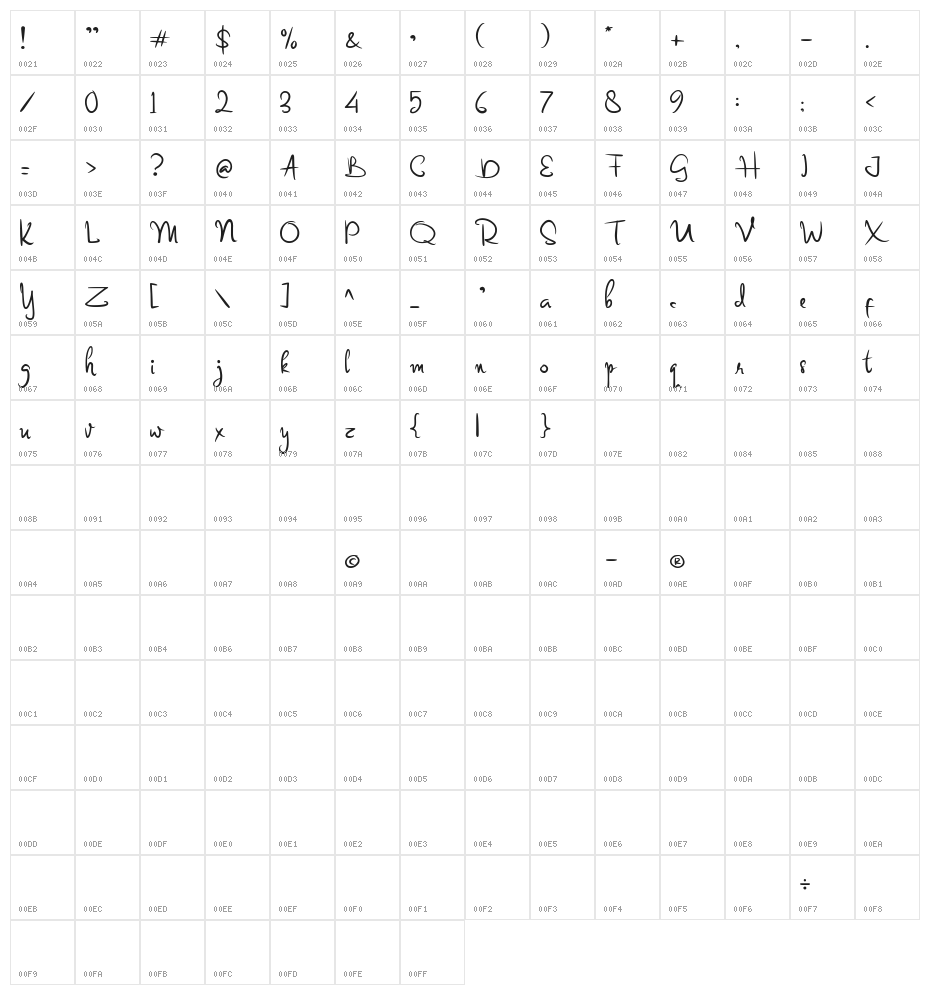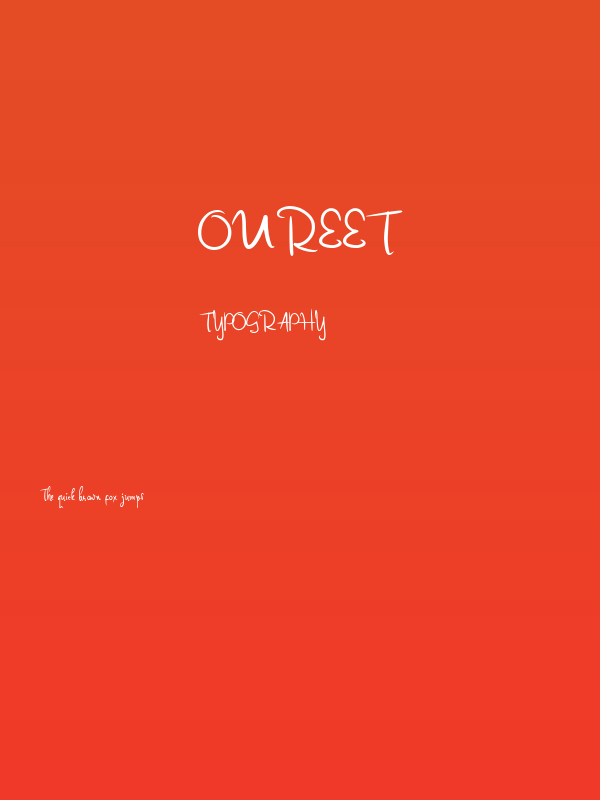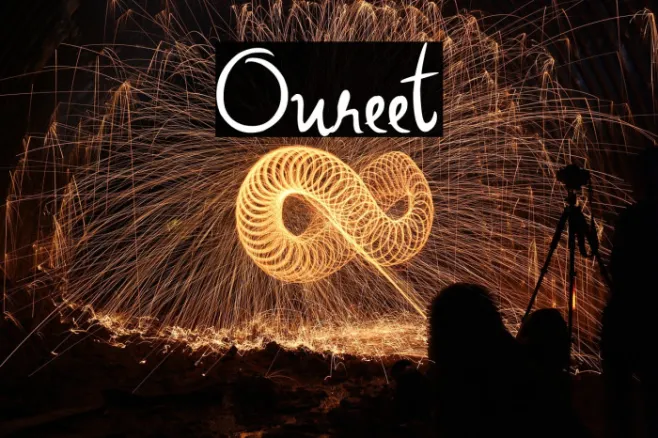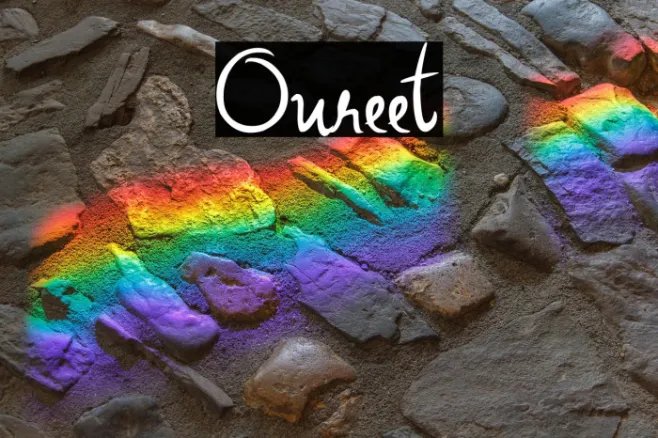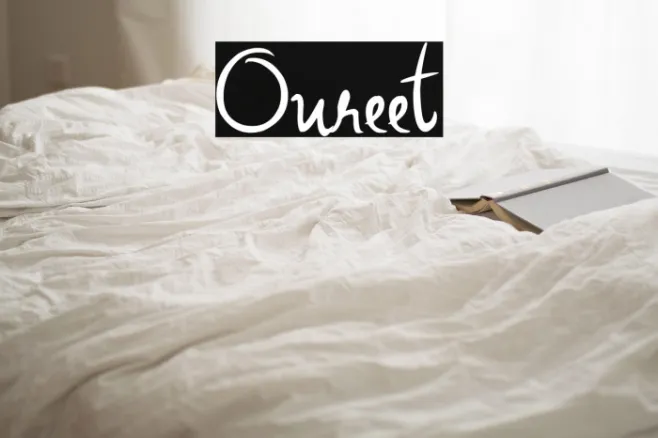
Oureet Font
Oureet Description
This font features a playful and artistic script style, characterized by its fluid and dynamic strokes. The uppercase letters exhibit a whimsical flair with varying stroke widths, while the lowercase letters maintain a consistent, flowing appearance. The numerals are bold and slightly exaggerated, adding to the font's expressive nature. Special characters are creatively integrated, enhancing the font's overall charm. This font is ideal for projects that require a personal touch or a creative, informal aesthetic.
| Proposed Projects | Greeting cards, invitations, branding for creative businesses, artistic posters, and social media graphics. |